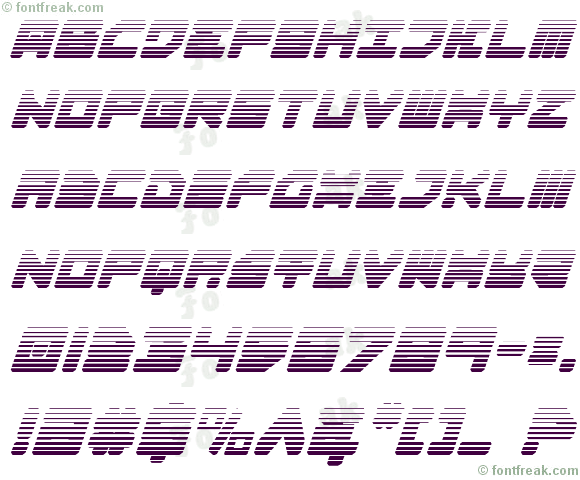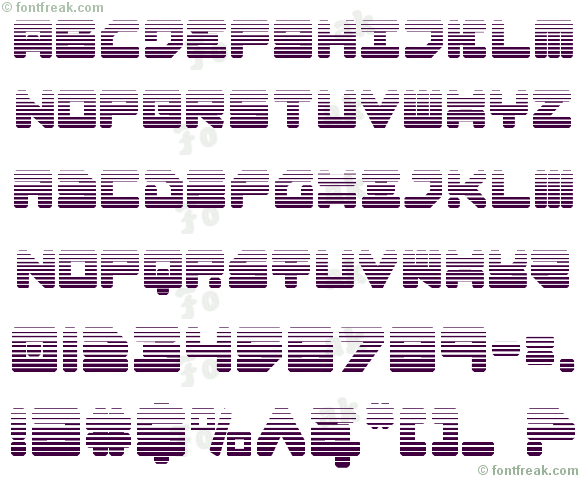
Omega-3 Gradient
The Omega-3 Gradient font by Daniel Zadorozny is a distinctive display typeface that combines modern aesthetics with a playful touch. This font is characterized by its unique gradient effect, which adds depth and dimension to each letterform. The design features a series of horizontal lines that create a visually striking 3D appearance. The strokes vary in weight, contributing to a dynamic look that captures attention while maintaining clarity. The spacing is well-balanced, ensuring legibility even at larger sizes, making it perfect for high-impact designs.
Ideal for a range of creative projects, the Omega-3 Gradient font shines in applications such as movie posters, where its bold and trendy style can evoke excitement. It's also suitable for music album covers, capturing the essence of contemporary culture with its striking visuals. Additionally, this font can enhance restaurant menus, offering a modern twist that would appeal to a younger clientele. Graphic designers and small business owners will find it particularly useful for branding purposes, as its unique flair can set a brand apart in a crowded marketplace.
The target audience for the Omega-3 Gradient font includes graphic designers, content creators, and marketing professionals who seek to make a statement with their typography. By using this font, they can convey a sense of innovation and creativity that resonates with their audience.
In summary, the Omega-3 Gradient font stands out not only for its eye-catching design but also for its versatility in various applications. Its unique gradient style makes it a memorable choice for any project. For those interested, the Omega-3 Gradient font free download is readily available, allowing users to incorporate this stylish typeface into their creative endeavors.